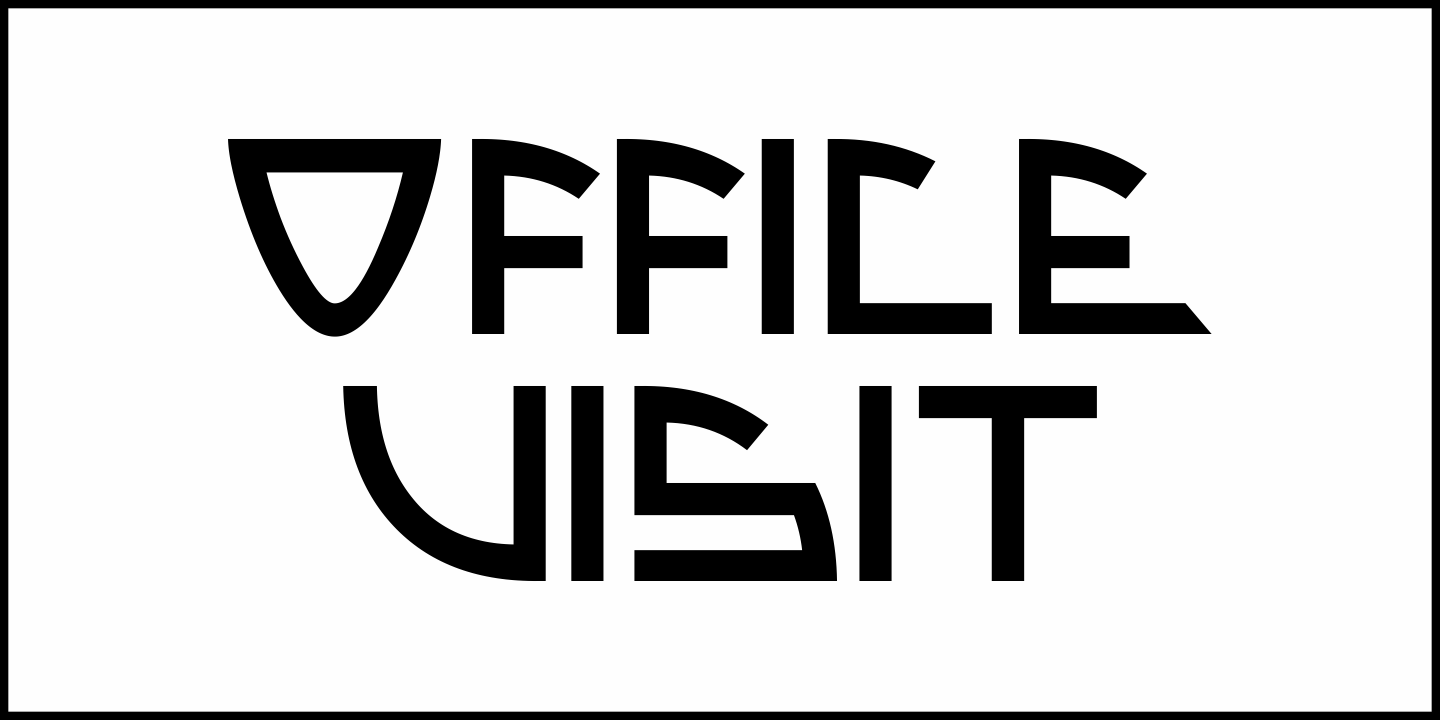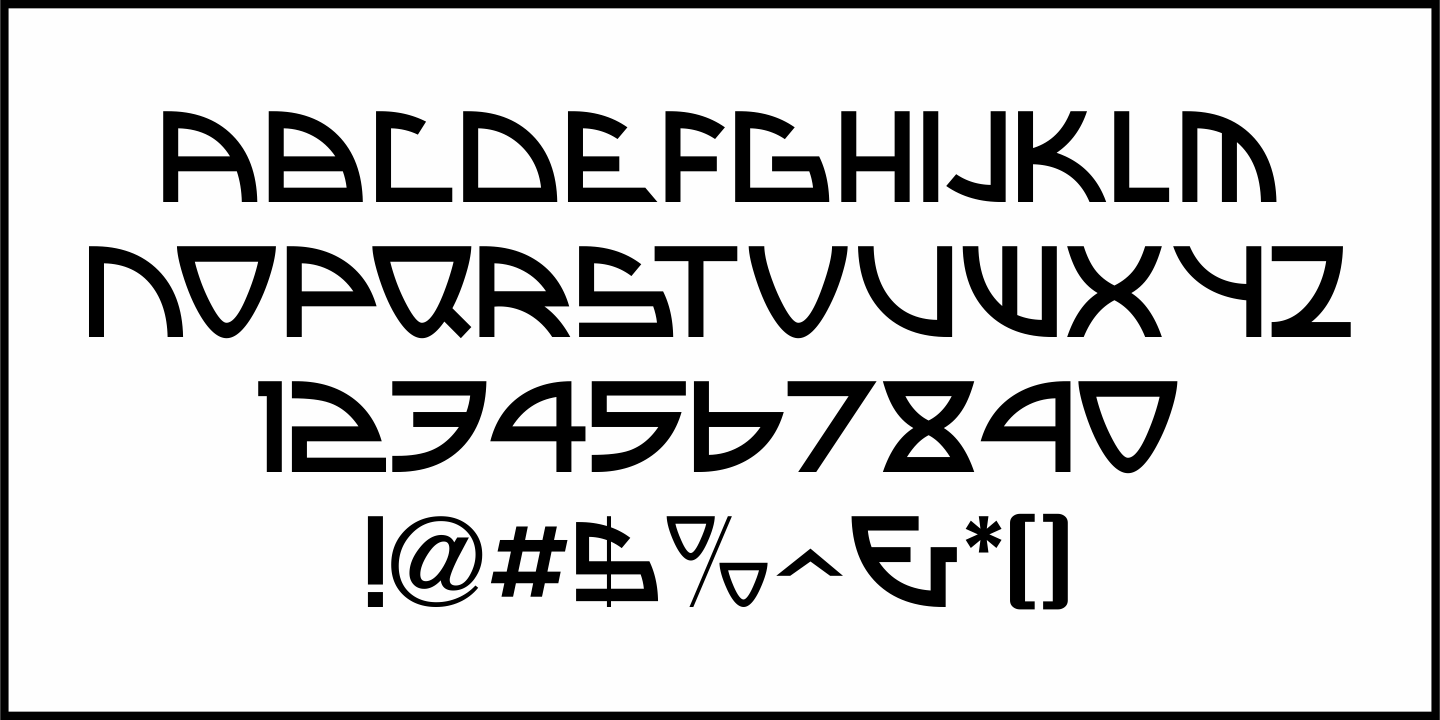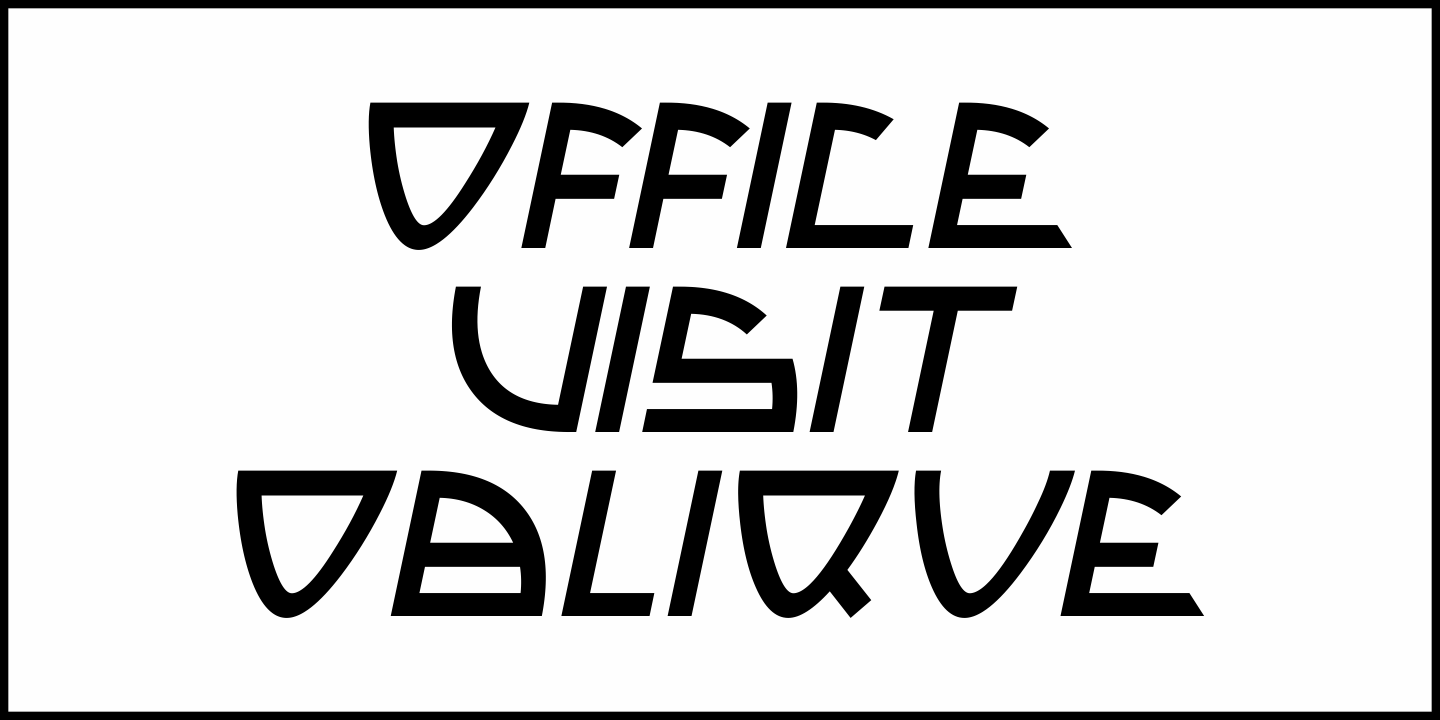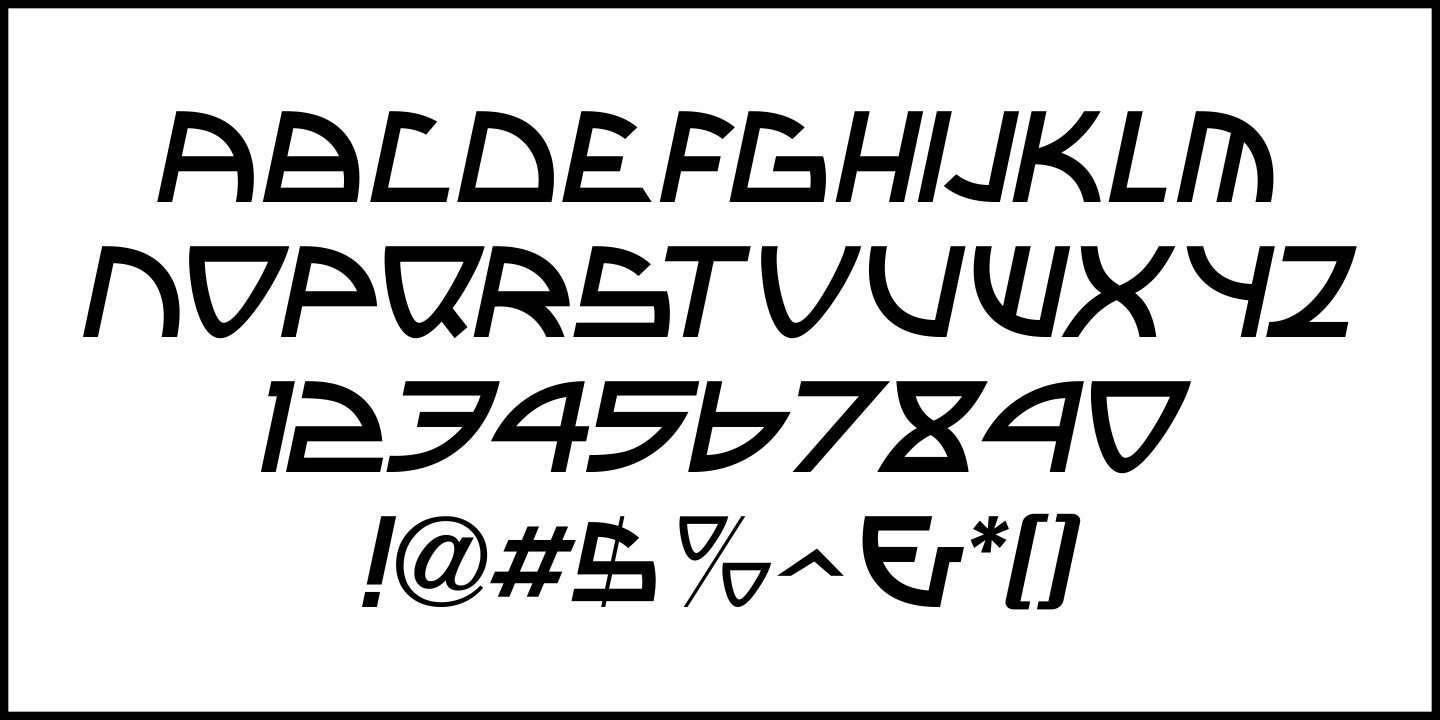
Office Visit
Dan Hardie, a Miami-based graphic artist and creative consultant at Mutiny, Inc. shared an image he'd spotted online of some interesting signage formerly on the front of the Miami Medical Building.
Comprised of hand-cut metal characters (with a thoroughly avant-garde 'Art Deco meets Modernist” approach), this instantly became a font design idea unusual and quirky enough to develop as a digital typeface.
The end result is Office Visit JNL, which is available in both regular and oblique versions.
Office Visit JNL Regular by Jeff Levine Fonts